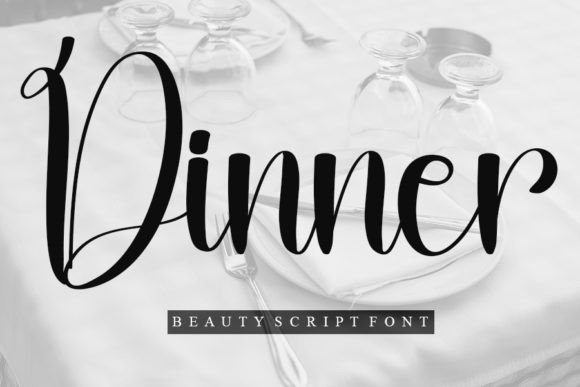
The Perfect Recipe for a Memorable Design
As designers, we’ve all been there – staring at a blank canvas, trying to conjure up the perfect idea. The moment of inspiration hits, and suddenly, the project takes shape. For me, it was a lazy Sunday afternoon, sipping coffee and browsing through a design blog. I stumbled upon a beautiful handwritten font that instantly caught my eye – Dinner Font.
This enchanting typeface is perfect for adding a touch of romance and whimsy to your next project. Whether you’re designing a greeting card, a wedding invitation, or a headline, Dinner Font is guaranteed to leave a lasting impression. Its versatility and unique charm make it a valuable asset for designers looking to add a personal touch to their work.
With Dinner Font, you’ll be able to create designs that are truly one-of-a-kind. Its warm and inviting feel makes it perfect for projects that require a sense of intimacy and emotion. So, why settle for a generic font when you can serve up a memorable design with Dinner Font?
Dinner Font Key Features
- Unique Characteristics: The font features a unique blend of modern and vintage elements, with distinctive ligatures, swashes, and ornaments that add a touch of elegance and sophistication to any design.
Dinner Font Review
I recently had the chance to work with the ‘Dinner Font’ and here’s my honest review.
- The font’s unique, cursive style adds a touch of elegance to any text.
- The numerous weight options (from Thin to Black) make it versatile for various design applications.
- It’s particularly well-suited for headings and titles, where its flair and personality can shine.
- The font’s complexity might make it difficult to read in smaller sizes, especially for body text.
- The lack of ligatures and alternative characters may limit its usability in certain languages.
- The font’s design might not be suitable for applications requiring a more modern or minimalist aesthetic.
While ‘Dinner Font’ excels in certain areas, its limitations hold it back from being a truly universal font solution. However, for designers looking to add a touch of sophistication and whimsy to their work, ‘Dinner Font’ can be a great choice – just be mindful of its limitations and use it accordingly.
Tips for Getting the Most Out of Dinner Font
To get the most out of Dinner Font, use it for designs related to food, restaurants, or culinary themes. You can also use it to add a touch of elegance and sophistication to your designs.
Dinner Font is commonly used for:
- Restaurant menus
- Culinary blog posts
- Food packaging designs
- Event invitations (e.g., dinner parties)